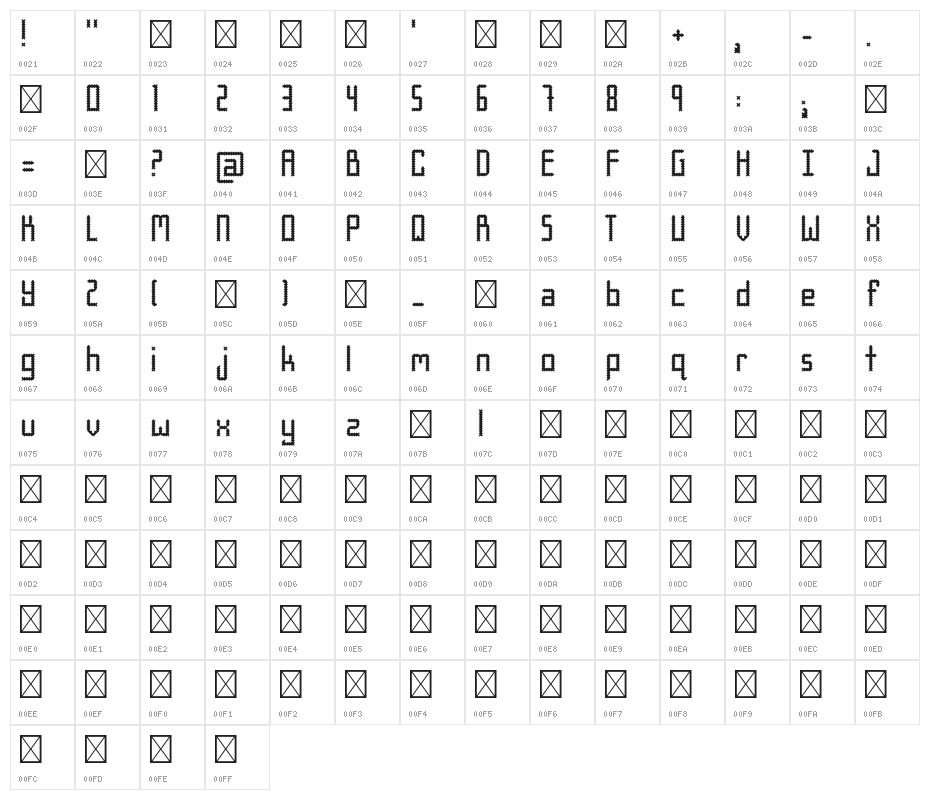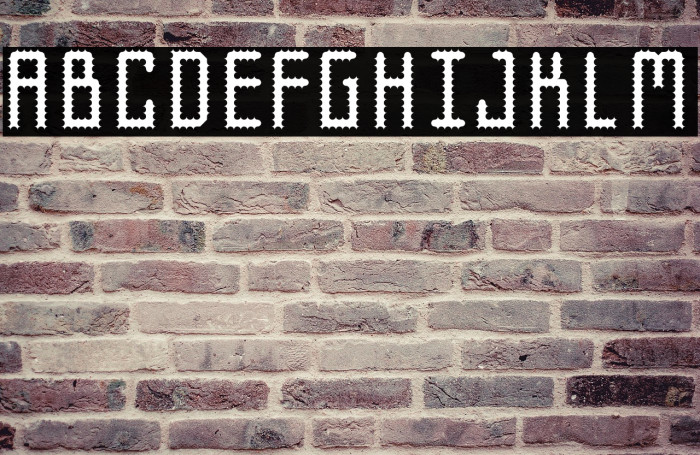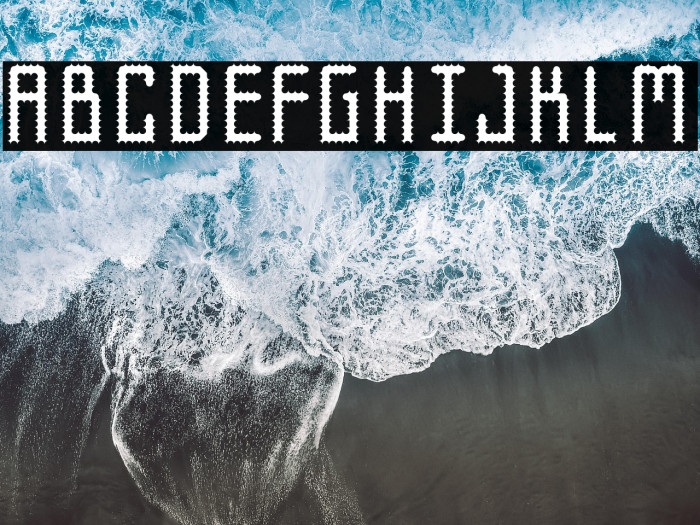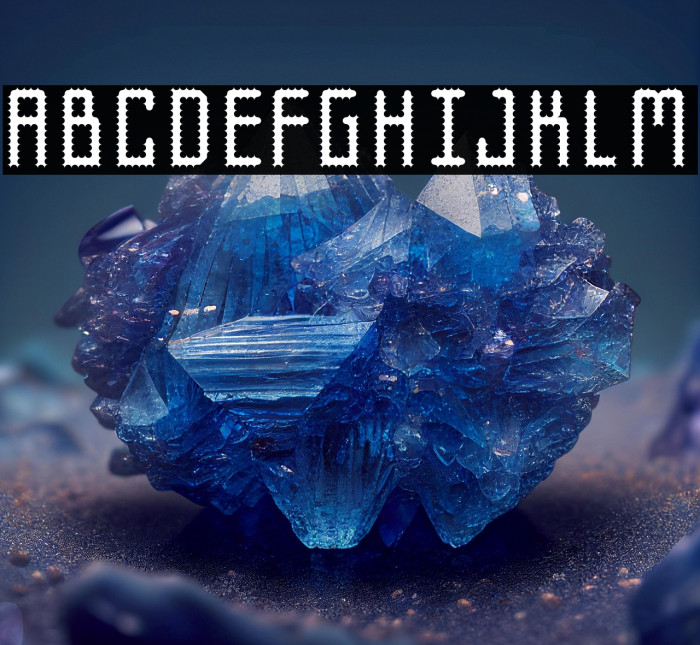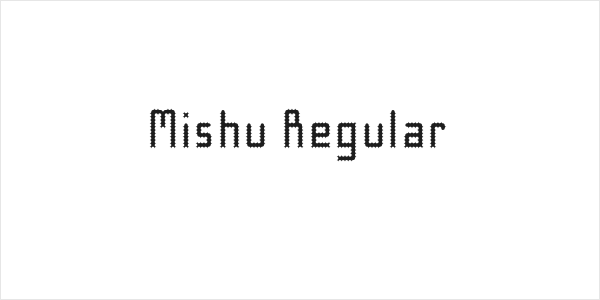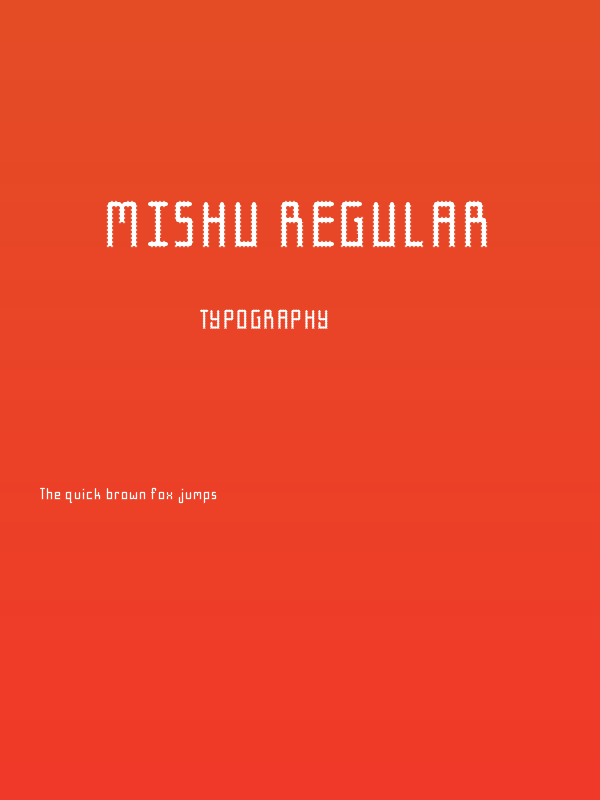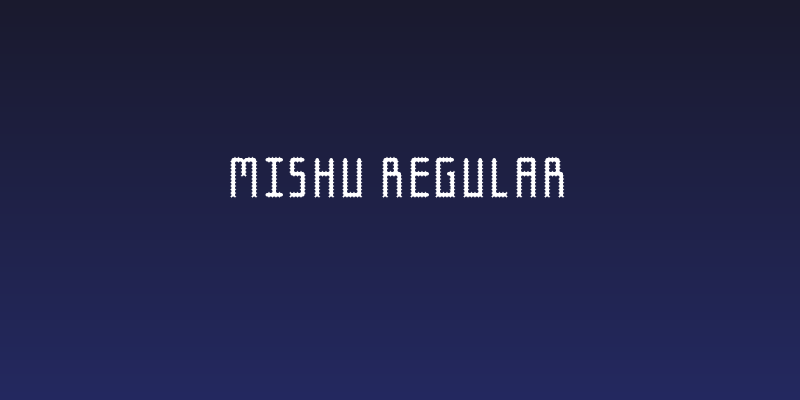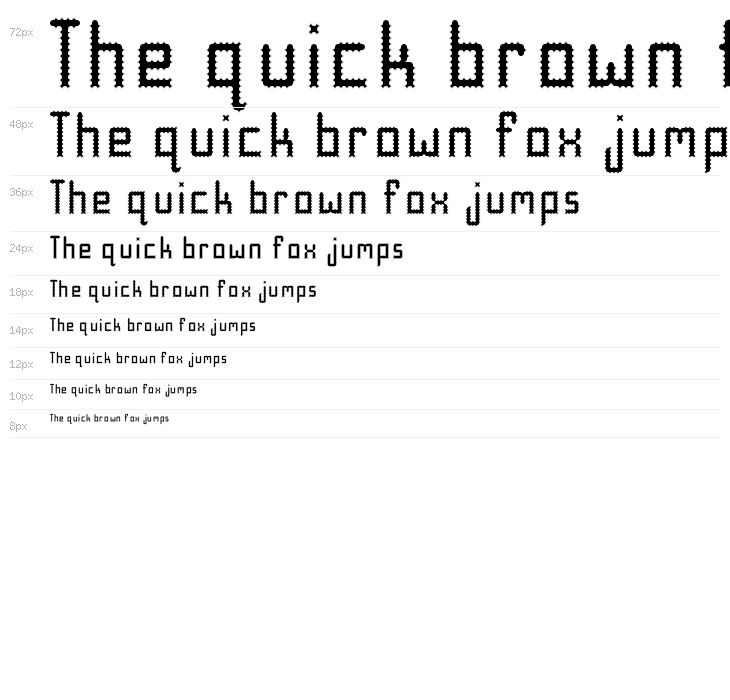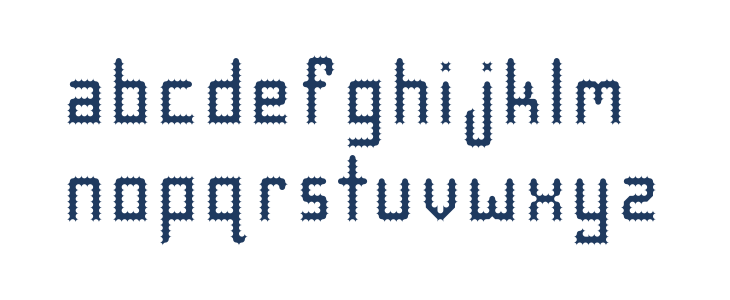
Mishu Regular Font
Mishu Regular Description
This font features a unique, decorative style with a jagged, zigzag pattern along the edges of each character. The uppercase and lowercase letters maintain a consistent height, giving a uniform appearance. The numbers and special characters follow the same design, ensuring cohesion across all elements. The font's playful and unconventional look makes it stand out, ideal for creative and artistic projects. Its distinct style is reminiscent of handcrafted or stitched designs, adding a tactile, textured feel to any text.
| Proposed Projects | Perfect for creative designs, posters, children's books, and artistic branding. |